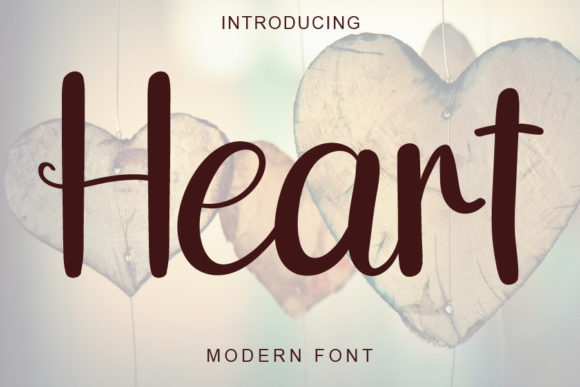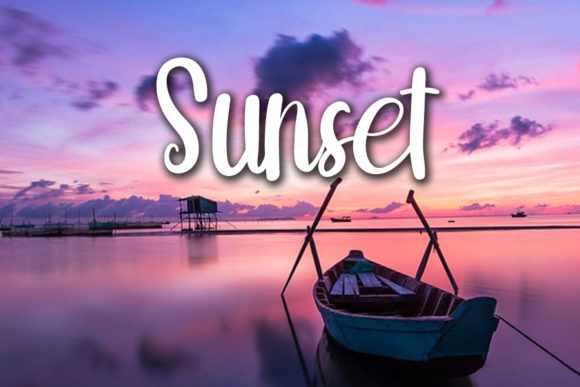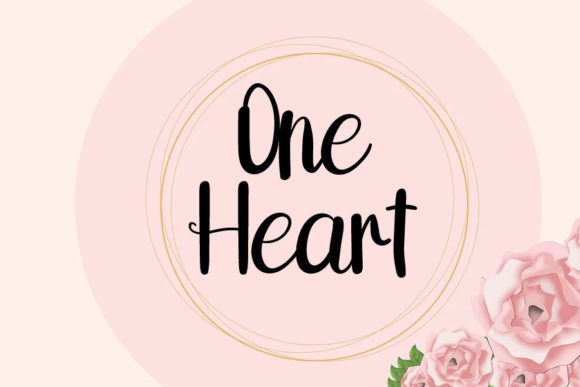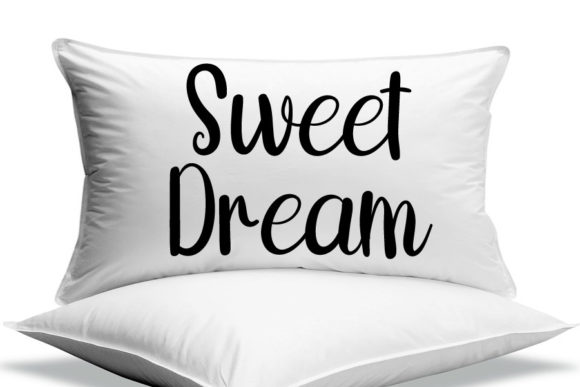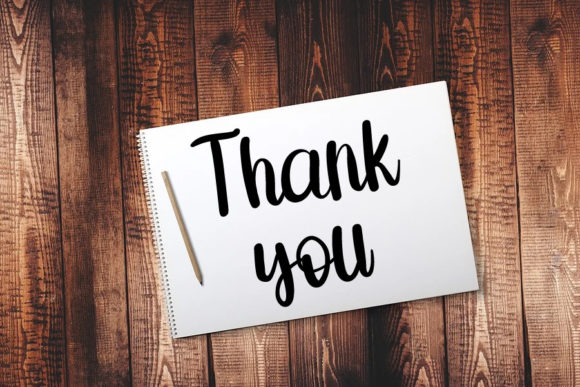
Heart Font
About Heart Font
“Heart This”: Fresh and Beautiful Font for Progress and Development
Introducing “Heart This,” a fresh and beautiful font designed to elevate your design purposes. Whether you’re working on YouTube banners, cover logo mockups, wedding invitations, ID cards, flyers, crafts, or any creative project, “Heart This” is here to add a touch of simplicity and uniqueness. Using this font not only enhances your designs but also contributes to the progress and development of your business.
The standout features of “Heart This” lie in its freshness and beauty. The font brings a sense of vibrancy and elegance, making it a versatile choice for a variety of design purposes. Whether you’re creating visually appealing YouTube banners or crafting unique wedding invitations, “Heart This” becomes the key element that adds a fresh and beautiful touch to your designs.
Imagine using “Heart This” for cover logo mockups where the font’s simplicity enhances the overall branding and identity. In ID cards, the font adds a touch of elegance and uniqueness, making your business stand out. Its versatility shines through in flyers and crafts, where the font contributes to the visual appeal and creativity of your promotional materials.
By choosing “Heart This,” you’re not just selecting a font; you’re investing in a design tool that has the potential to progress and develop your business. The font’s simplicity ensures readability, while its uniqueness sets your designs apart from the ordinary.
In conclusion, “Heart This” is a font that goes beyond aesthetics; it’s a design asset that brings freshness and beauty to your projects. Whether you’re working on YouTube banners, cover logo mockups, wedding invitations, ID cards, flyers, crafts, or any other context, let “Heart This” be the font that contributes to the progress and development of your business. Explore its versatility, embrace its simplicity, and watch as it transforms your designs into visually appealing and uniquely memorable creations.